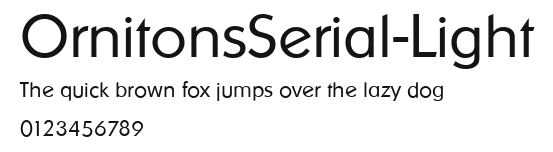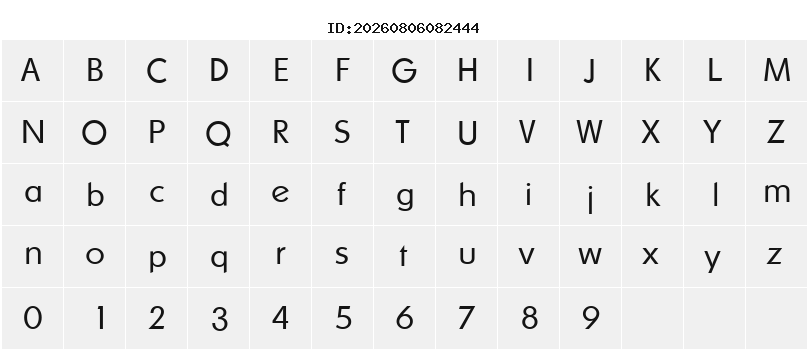
OrnitonsSerial-Light Preview
• Font Name: OrnitonsSerial-Light
• Font ID: SoftMaker Software GmbH OrnitonsSerial-Light-Regular
• Full Font Name: OrnitonsSerial-Light-Regular
• Version: Version 1.0 28-08-2002
• PostScript Name: OrnitonsSerialLight
• Character Count: 251
• Designer: SoftMaker Software GmbH
• Manufacturer: SoftMaker Software GmbH
About OrnitonsSerial-Light.ttf
OrnitonsSerial-Light.ttf is a modern, elegant sans-serif font designed for ultimate readability and visual harmony. Perfect for branding, headlines, web design, and print materials.